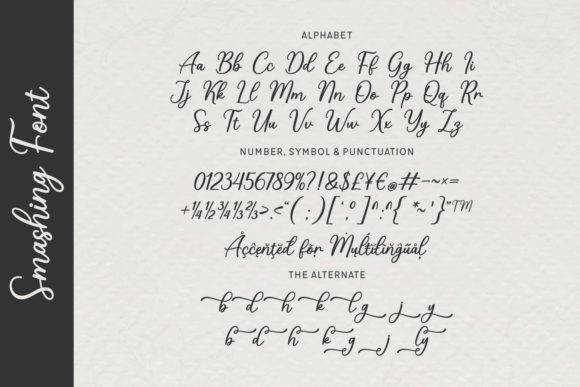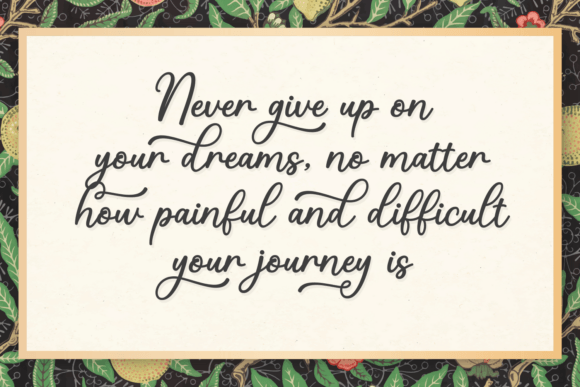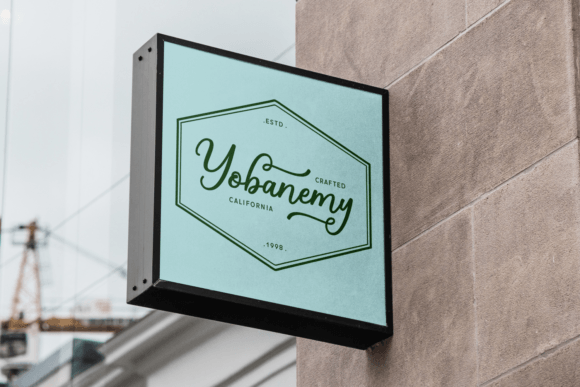
Introduction to Smashing Font
As a designer, you’ve probably found yourself staring at a blank canvas, waiting for inspiration to strike. The cursor blinks, and you’re unsure where to begin. But what if I told you that the perfect starting point is just a few clicks away? Enter the Smashing Font, a modern script font that’s about to revolutionize your design game.
With its sleek, stylish design and smooth flowing curves, the Smashing Font is the ultimate design resource for anyone looking to add a touch of elegance to their creative project. Whether you’re working on a logo, branding, invitation, or social media graphic, this font exudes confidence and charm. And the best part? It’s available for a free download, making it an accessible high-quality design element for designers of all levels.
Key Features of Smashing Font
- High-quality, vector-based design: Smashing Font is a precision-crafted font that ensures crisp and clear text rendering, perfect for creative projects.
Honest Review: Smashing Font
As a designer, I’m always on the lookout for high-quality design resources that can elevate my creative projects. The Smashing Font has been a game-changer for me. With its sleek and modern design, it’s the perfect addition to any design project. ✨
- High-quality design: The Smashing Font is incredibly detailed and has a smooth texture that makes it perfect for any design project.
While the Smashing Font is an excellent resource, there are a few limitations to be aware of. ⚠️
- Limited customization options: While the font is highly customizable, there are some limitations to what you can change.
- Not ideal for large-scale projects: Due to its high-quality design, the Smashing Font can be resource-intensive, making it less ideal for large-scale projects.
Overall, I’m thoroughly impressed with the Smashing Font. Its high-quality design and transparent background make it a valuable addition to any design project. While there are some limitations, the benefits far outweigh the drawbacks. If you’re a designer looking for a reliable design resource, the Smashing Font is definitely worth checking out.
Smashing Font is a versatile design resource perfect for any creative project. With its high-quality design and transparent background, it’s an ideal choice for designers and non-designers alike.
Tips for Getting the Most Out of Smashing Font
To get the most out of Smashing Font, use it in conjunction with other high-quality design resources and experiment with different font sizes, colors, and styles.
Common Use Cases for Smashing Font
Smashing Font is perfect for:
- Creating eye-catching headings and titles.